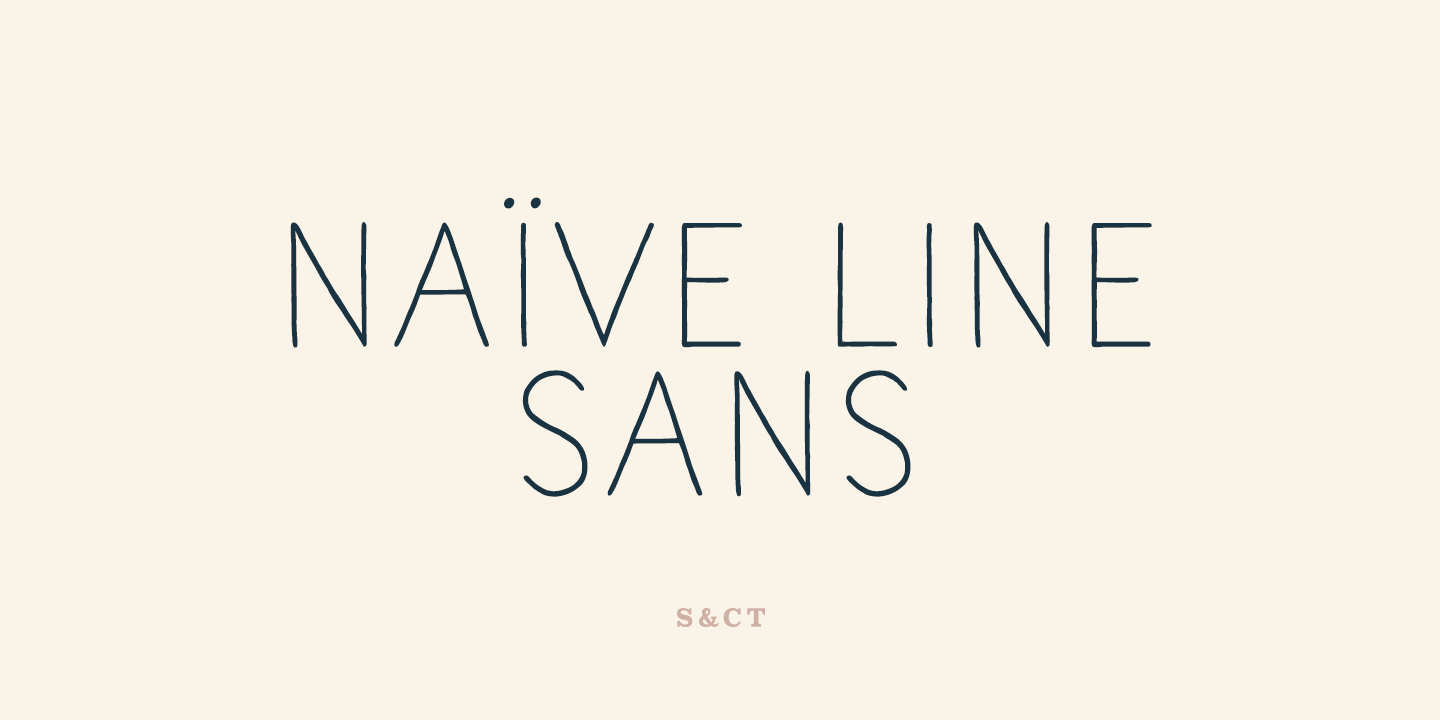
The Naive Line Sans Font is perfect for children's educational materials, playful brand identities, friendly app interfaces, casual cafe signage, creative workshop logos, informal presentation slides, approachable startup branding, handmade craft labels, and welcoming community center graphics.
What makes the Naive Line Sans Font so exciting is its charming simplicity that perfectly captures the innocent authenticity and approachable warmth of genuine human expression. This delightful typeface embodies the honest directness and unpretentious charm that defines authentic communication, creating an immediate impression of friendliness and trustworthy accessibility. The font's naive character communicates the genuine sincerity and approachable honesty that friendly businesses need to connect with audiences who appreciate authentic simplicity and seek comfortable experiences rooted in human warmth and unpretentious genuine care.
The Naive Line Sans Font family includes Regular weight featuring complete uppercase and lowercase character sets, comprehensive numerical collections, essential punctuation marks, and friendly symbols that maintain the approachable aesthetic throughout your casual and human-centered design projects.
Friendly businesses and community-focused organizations consistently choose Naive Line Sans Font Free Download for projects that require authentic approachable appeal and genuine human communication. This exceptional typeface excels in environments where establishing trust through simplicity and creating comfortable accessibility is crucial for attracting audiences who value honest communication and authentic human connections. The font's naive character helps communicate the sincerity and approachability that community-minded audiences expect from established local businesses and genuine human-centered service providers.
The distinctive qualities of Naive Line Sans Font reflect the timeless appeal of honest communication where simplicity, authenticity, and human warmth create meaningful connections and comfortable experiences. Each character demonstrates the unpretentious directness and genuine care that characterizes successful community businesses and human-centered service enterprises. The font's proportions and spacing create perfect balance between casual friendliness and clear functionality that modern approachable businesses require for effective community communication and human connection.
Contemporary community enterprises appreciate how Naive Line Sans Font communicates human authenticity and approachable sincerity. Whether designing materials for local cafes, creating branding for educational services, or developing marketing for community programs, this font delivers the genuine character that distinguishes authentic human connection from corporate formality. The typeface works exceptionally well for businesses emphasizing community values, human warmth, and the comfortable appeal of honest simplicity and approachable genuine care.
The versatility of Naive Line Sans Font extends across multiple community applications and human-centered marketing initiatives. Educational organizations utilize its friendly character for learning materials and student communication pieces. Local community centers choose it to communicate their welcoming atmosphere and inclusive community programming. Small businesses rely on its approachable appearance to attract customers seeking personal service and authentic local experiences.
Digital community platforms benefit from Naive Line Sans Font's optimized performance across various friendly applications and human-centered communication channels. The font maintains its naive character whether displayed on community websites, mobile local apps, or digital educational materials. This technical reliability ensures consistent brand presentation across all community communication platforms and human-centered engagement scenarios.
The emotional impact of Naive Line Sans Font resonates with audiences who appreciate genuine human connection and seek comfortable experiences that prioritize authenticity over sophistication. The typeface serves as a visual promise of honest communication and human warmth that helps community businesses build lasting relationships with customers who value personal attention and authentic local connections. This association with human sincerity and approachable authenticity makes it invaluable for establishing trusted community brand identities.
Community marketing specialists and human-centered design professionals recognize Naive Line Sans Font as an essential tool for authentic approachable branding. The font captures the essence of human warmth while making genuine communication accessible to contemporary community businesses who want to communicate their commitment to honest service, human connection, and the comfortable appeal of authentic simplicity in today's relationship-focused local marketplace.